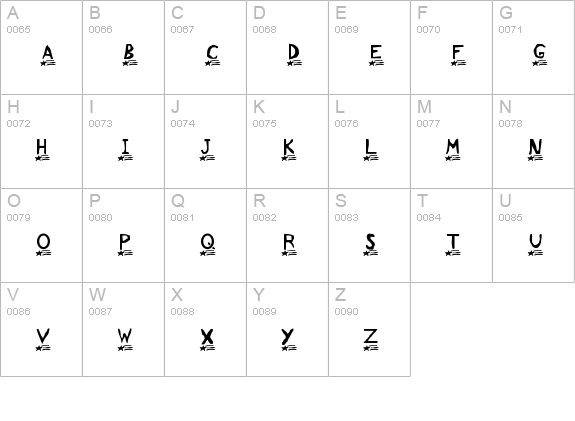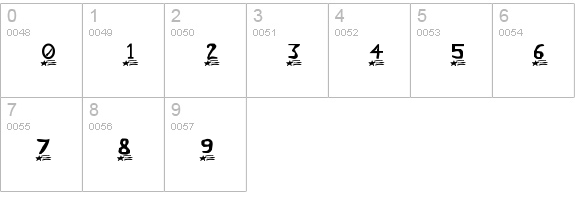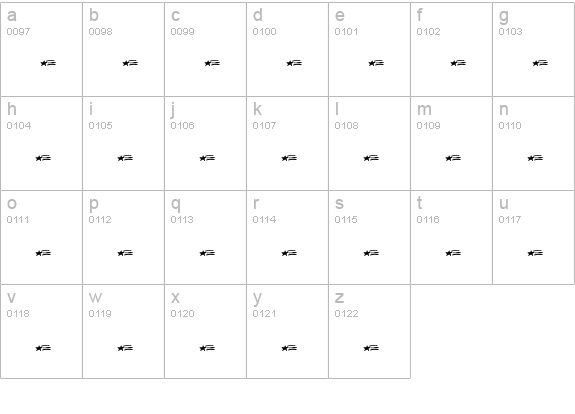
Comet Font Details
Comet font is a stunning display typeface that effortlessly combines modern sophistication with classic elegance. Its sleek lines and graceful curves make it perfect for catching the eye and adding a touch of refinement to any design project. Whether used for headlines, logos, or branding materials, Comet font exudes a sense of style and professionalism. The best part? Comet font is completely free to download at FontsMarket.com. This means you can easily access this versatile typeface and incorporate it into your creative work without any hassle. With its versatility and timeless appeal, Comet font is sure to become a go-to choice for designers looking to make a statement. Download it today and elevate your designs with this exceptional font.